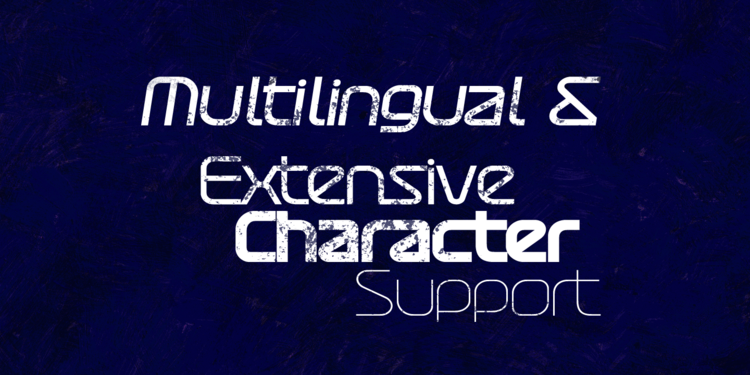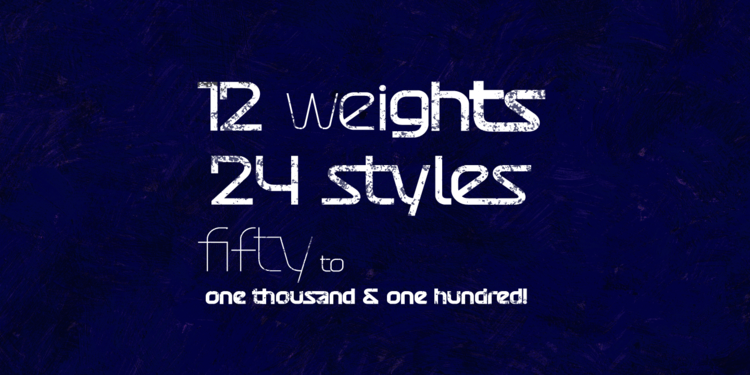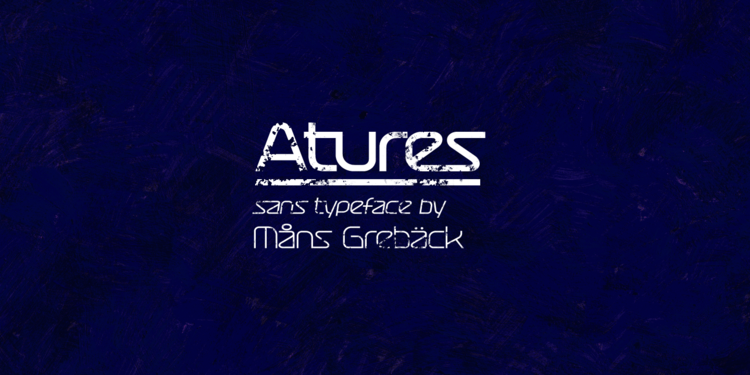
Atures Typeface
Atures is a high quality multi-weight typeface, drawn and created by Måns Grebäck during 2018.
It is a professional font family with futuristic, space-inspired design. The family consists of 12 weights and with italic a total of 24 styles.
Atures has extensive language support, and contains all characters you’ll ever need.